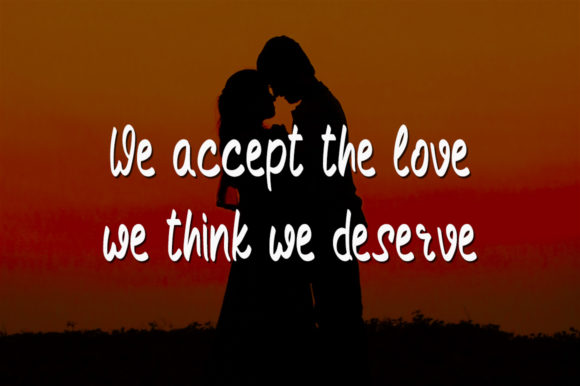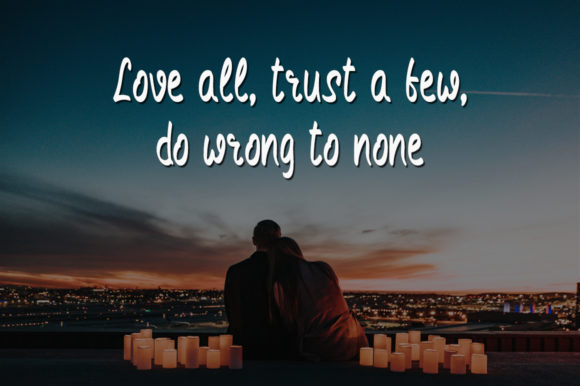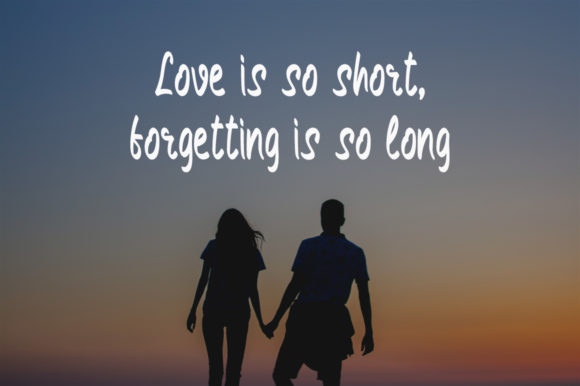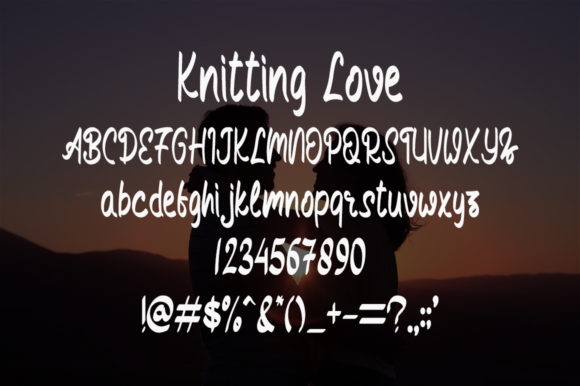
Introduction to Knitting Love Font
Knitting Love is a casual handwritten font.
This fontโs versatility will appeal to a wide range of crafty ideas, from letterheads and titles, to stationery .
Key Features of Knitting Love Font